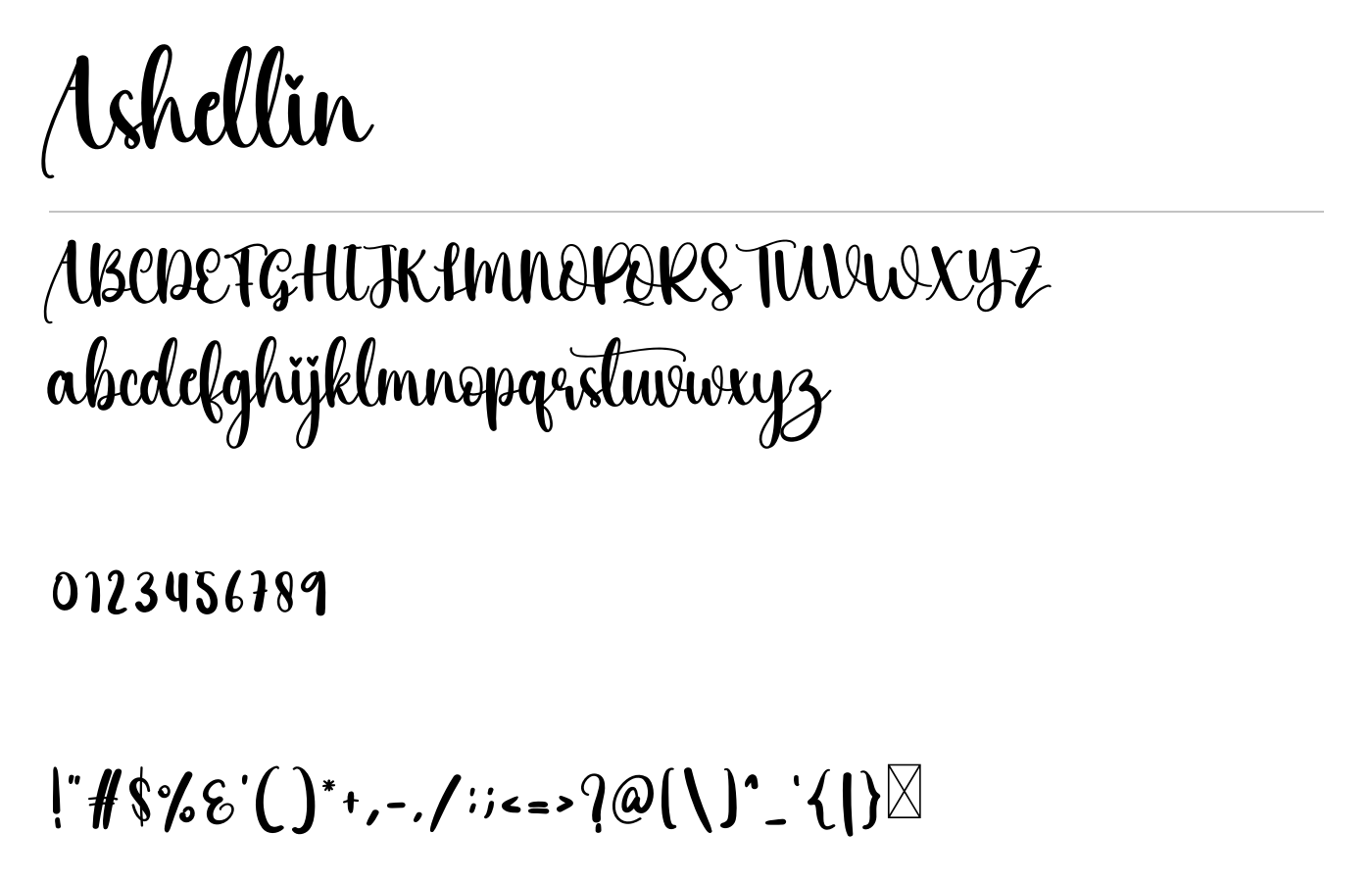
Ashellin is a playful and elegant script font that features smooth, flowing strokes with a hand-brushed feel. Its lively letterforms, combined with charming details like the heart-shaped dot on the "i," make it perfect for feminine and creative designs such as invitations, branding, and social media graphics. The font’s casual yet sophisticated style brings a warm, personal touch to headlines and logos where a friendly, approachable vibe is desired.
Ashellin Font